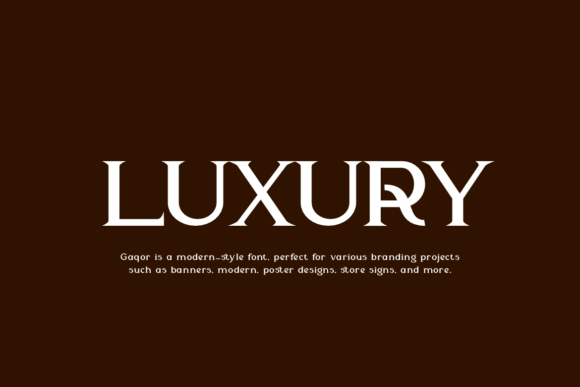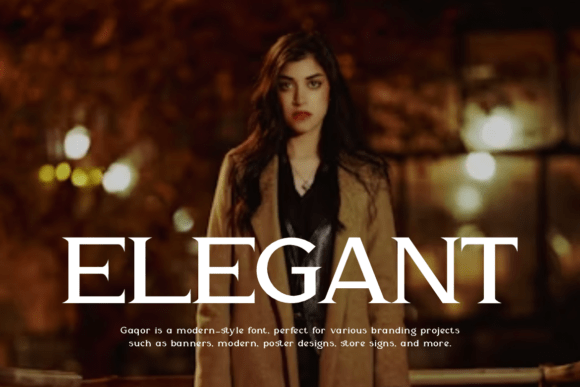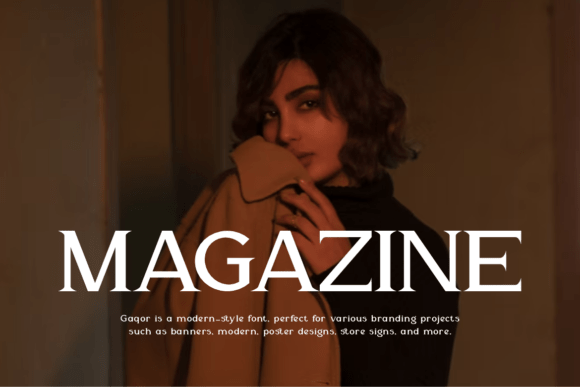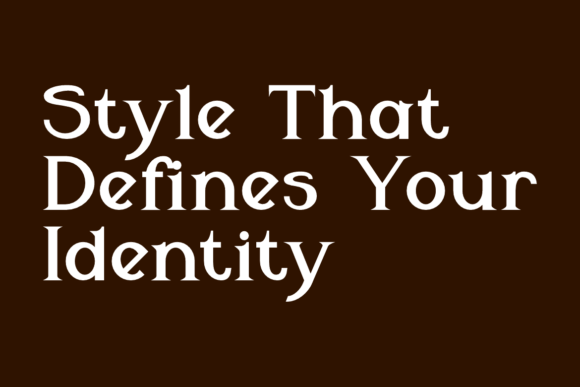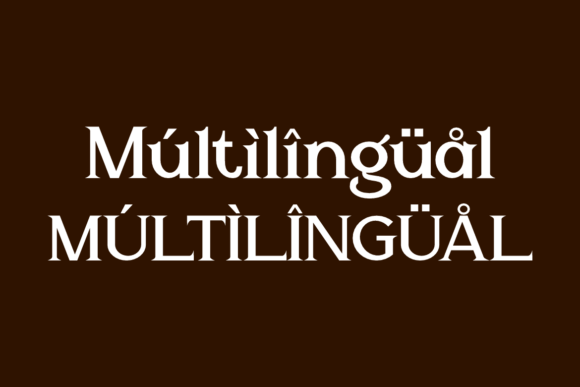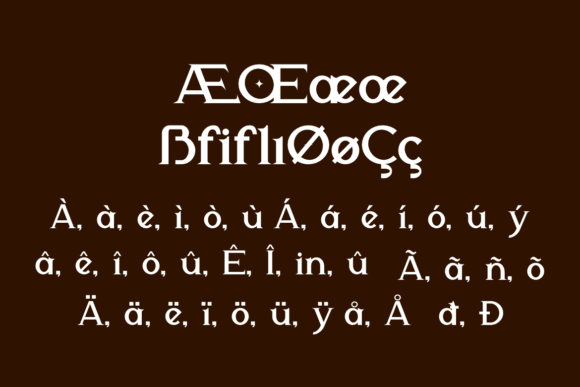
Introducing Gaqor Font: The Epitome of Luxury Modern Serif Typography
In the realm of typography, few fonts manage to convey the essence of luxury and sophistication as effectively as Gaqor. This modern serif typeface is a paragon of contemporary high-fashion typography, marrying bold, geometric construction with delicate artistic flourishes. The result is a font that exudes an aura of unyielding elegance, perfect for designers and crafters seeking to imbue their projects with a sense of professional authority and legendary artisanal beauty.
The Design Philosophy Behind Gaqor
Gaqor’s design is rooted in a deep understanding of the needs of luxury branding and high-end visual identity. Its creators aimed to craft a typeface that would not only command attention but also convey a sense of refined taste and sophistication. To achieve this, Gaqor features a bold, geometric construction that provides structural power and stability, while its ethereal artistic flourishes add a touch of elegance and whimsy.
This balance of contrasting elements allows Gaqor to adapt seamlessly to a wide range of applications, from high-end boutique branding and luxury jewelry packaging to avant-garde magazine headers and cinematic editorial layouts. Whether used in print or digital media, Gaqor ensures that every word feels like a curated statement of modern prestige.
Key Features of Gaqor Font
So, what sets Gaqor apart from other modern serif typefaces? Here are some of its key features:
- Bold, geometric construction: Gaqor’s robust design provides a solid foundation for any visual identity, exuding confidence and professionalism.
- Ethereal artistic flourishes: Delicate, artistic touches add a touch of elegance and sophistication, elevating Gaqor to a truly luxury typeface.
- High-end aesthetic: Gaqor is designed specifically with luxury branding in mind, making it perfect for high-end boutiques, jewelry packaging, and other premium applications.
- Versatility: Gaqor’s adaptable design allows it to thrive in a wide range of contexts, from print and digital media to editorial layouts and branding.
Applications for Gaqor Font
Gaqor’s versatility is one of its greatest strengths, making it suitable for a diverse array of applications. Here are some examples of how Gaqor can elevate your visual identity:
- High-end boutique branding: Gaqor’s luxury aesthetic and sophisticated design make it perfect for high-end boutiques, fashion brands, and upscale retailers.
- Luxury jewelry packaging: Gaqor’s elegant, refined design is well-suited to luxury jewelry packaging, adding a touch of sophistication and glamour to any product.
- Avant-garde magazine headers: Gaqor’s bold, geometric construction and artistic flourishes make it an excellent choice for avant-garde magazine headers, adding a touch of edginess and sophistication.
- Cinematic editorial layouts: Gaqor’s high-end aesthetic and versatility make it perfect for cinematic editorial layouts, adding a sense of drama and luxury to any publication.
In conclusion, Gaqor is a luxury modern serif typeface that embodies the essence of high-end typography. Its bold, geometric construction and ethereal artistic flourishes make it a masterpiece of contemporary high-fashion typography, perfect for designers and crafters seeking to create visually stunning and sophisticated projects. With its versatility, high-end aesthetic, and adaptability, Gaqor is an excellent choice for anyone looking to command a presence of unyielding elegance in their visual identity.
Whether you’re a designer, crafter, or simply a typography enthusiast, Gaqor is a font that is sure to inspire and elevate your work. So why settle for ordinary typography when you can command a presence of unyielding elegance with Gaqor?